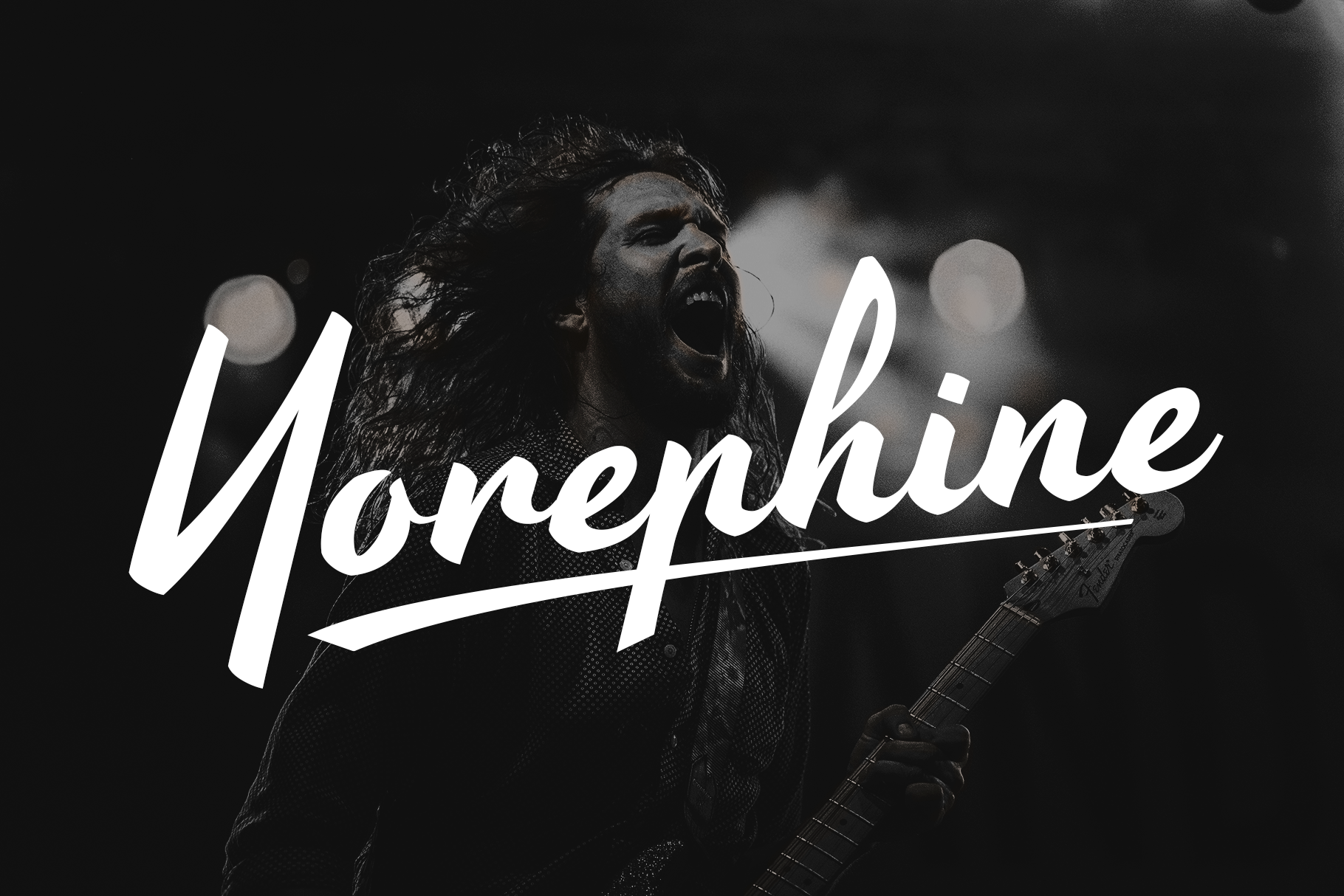
Yorephine - Lettering Script Font
modern lettering script for your bike repair company logo
character sets
- basic latin
- numbers & symbols
- latin-1 supplement
- latin extended-a